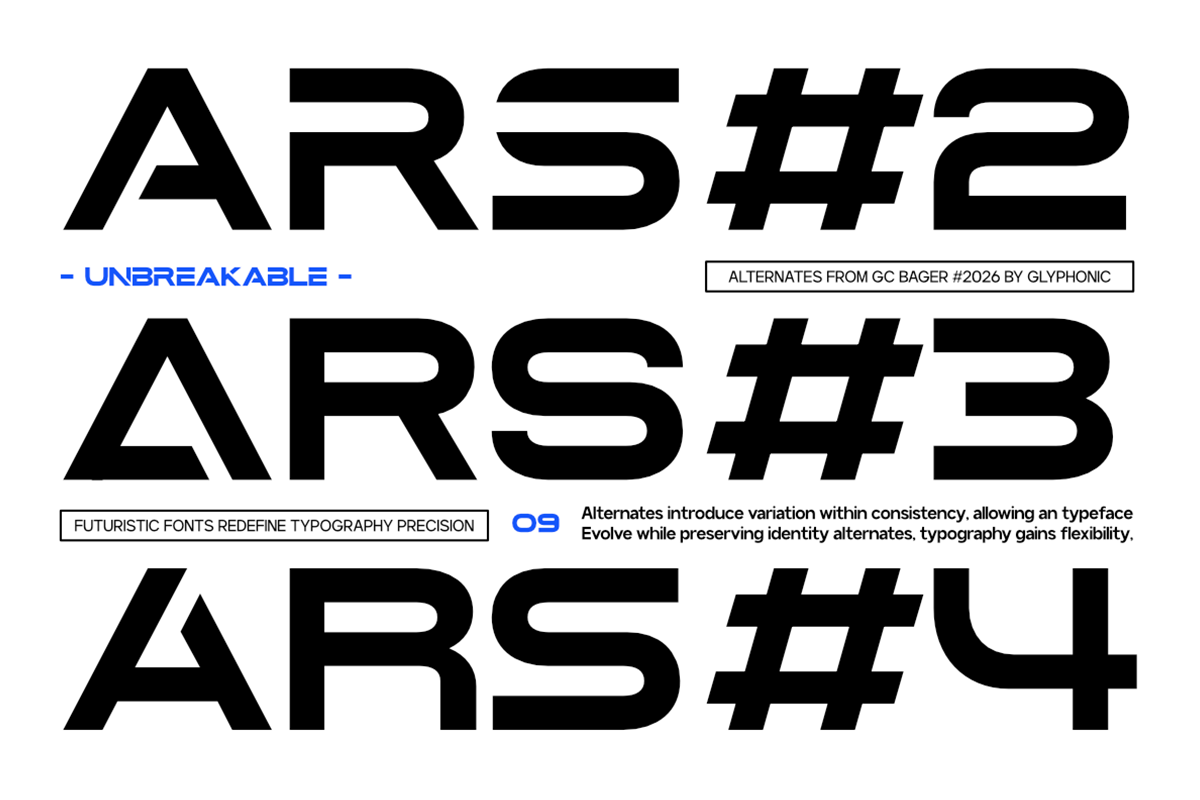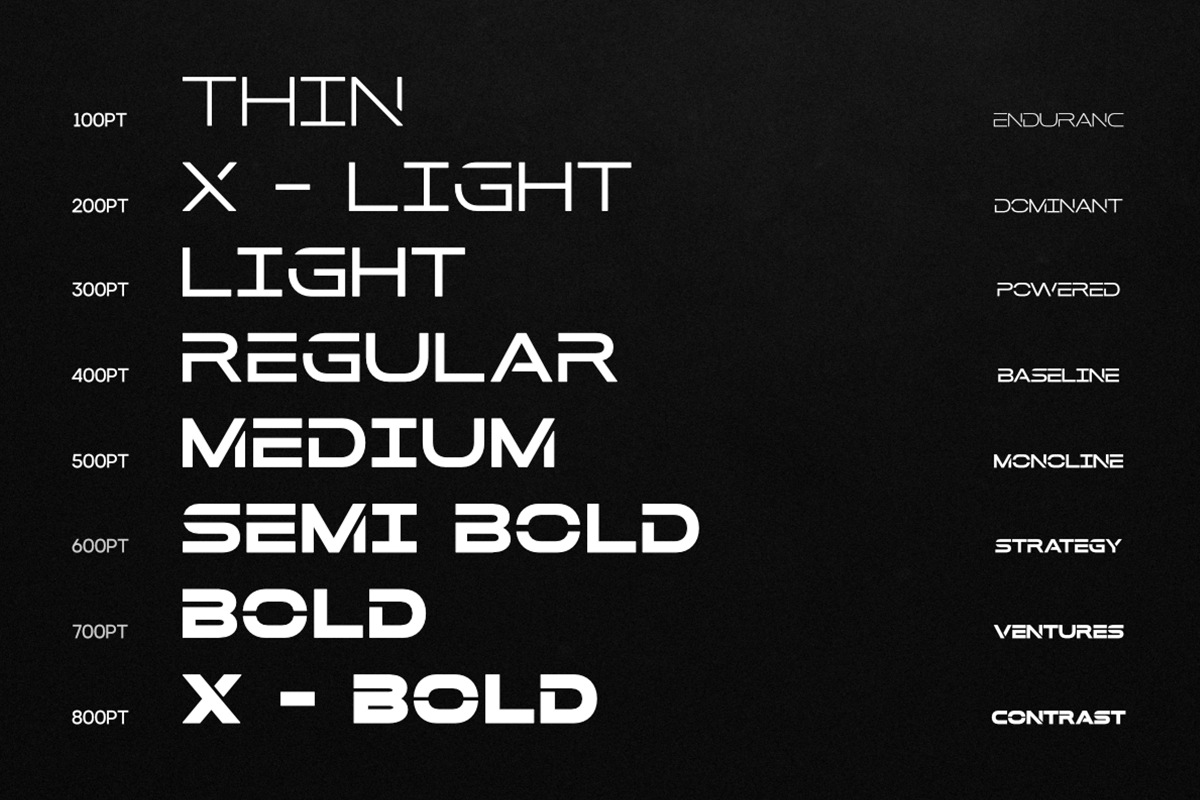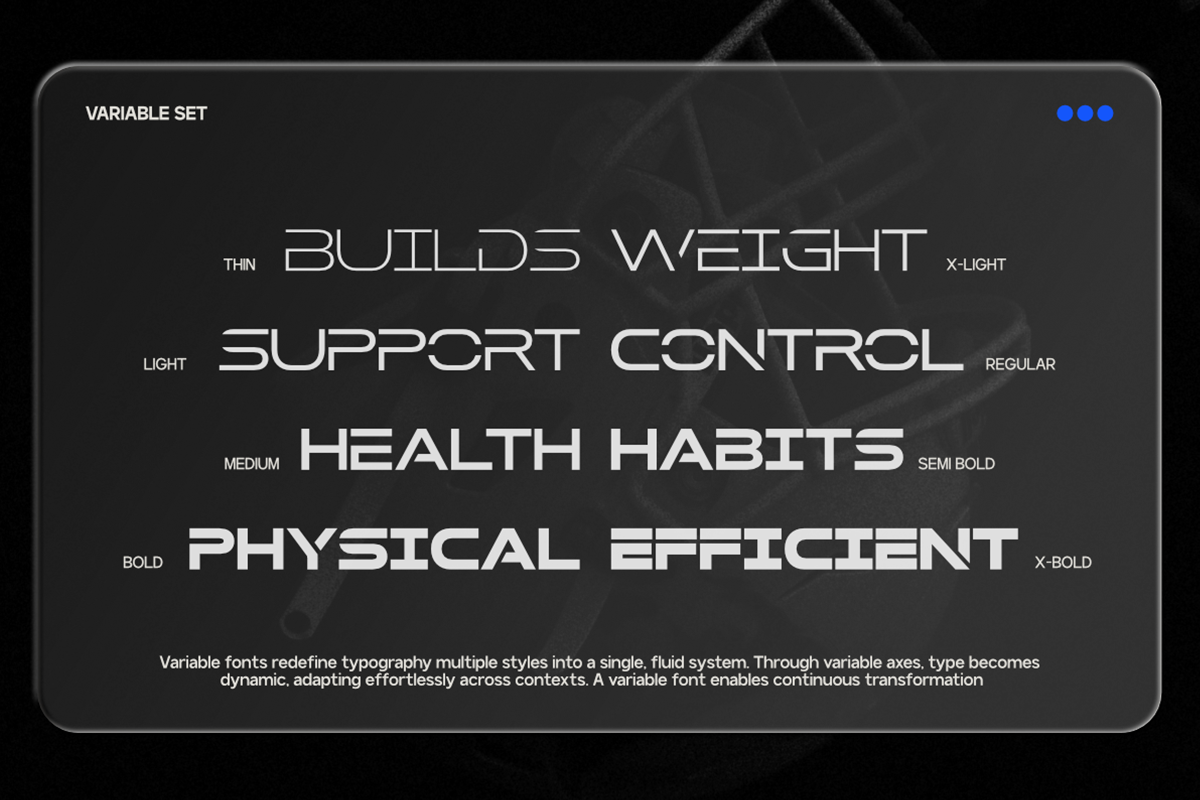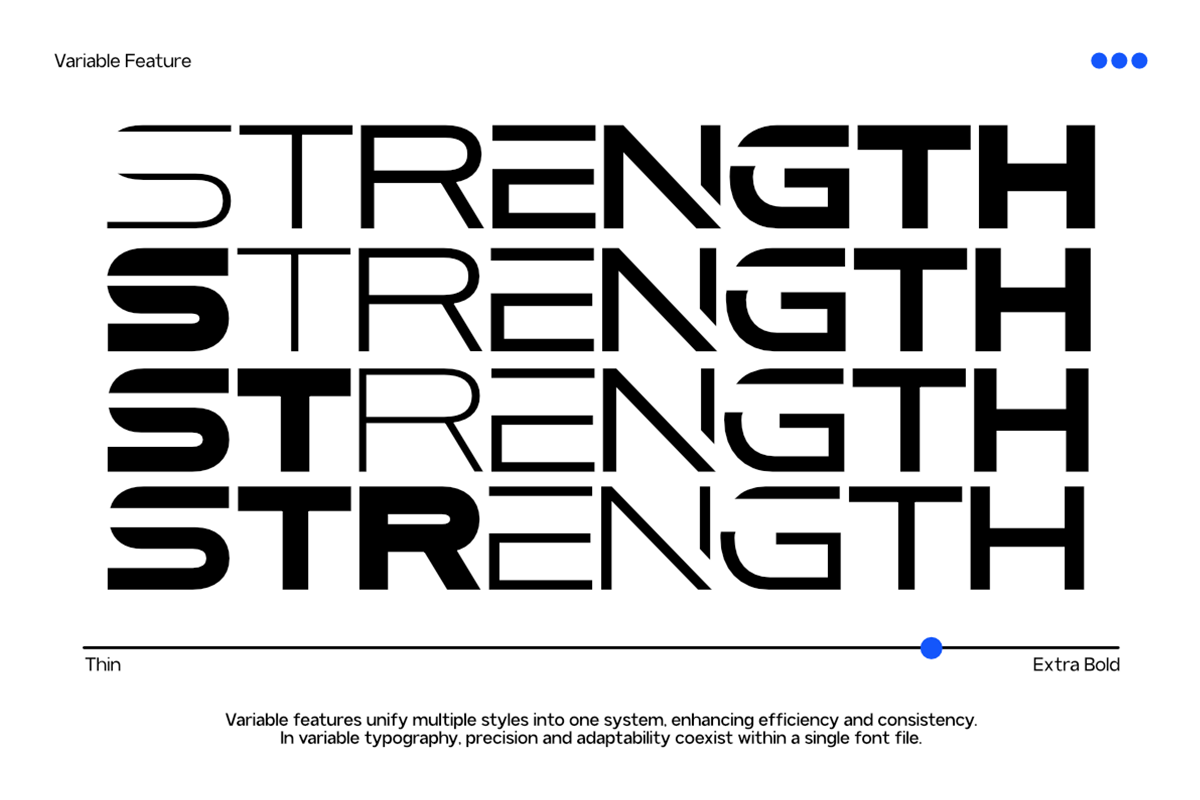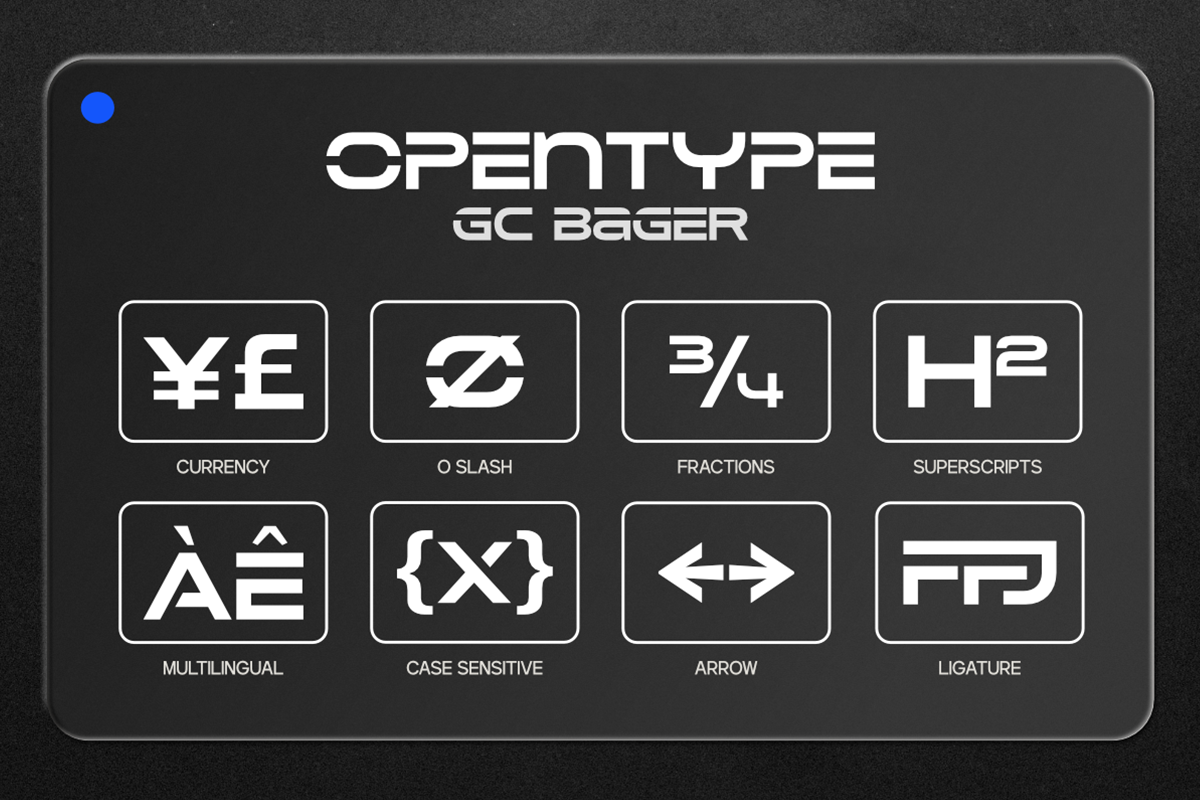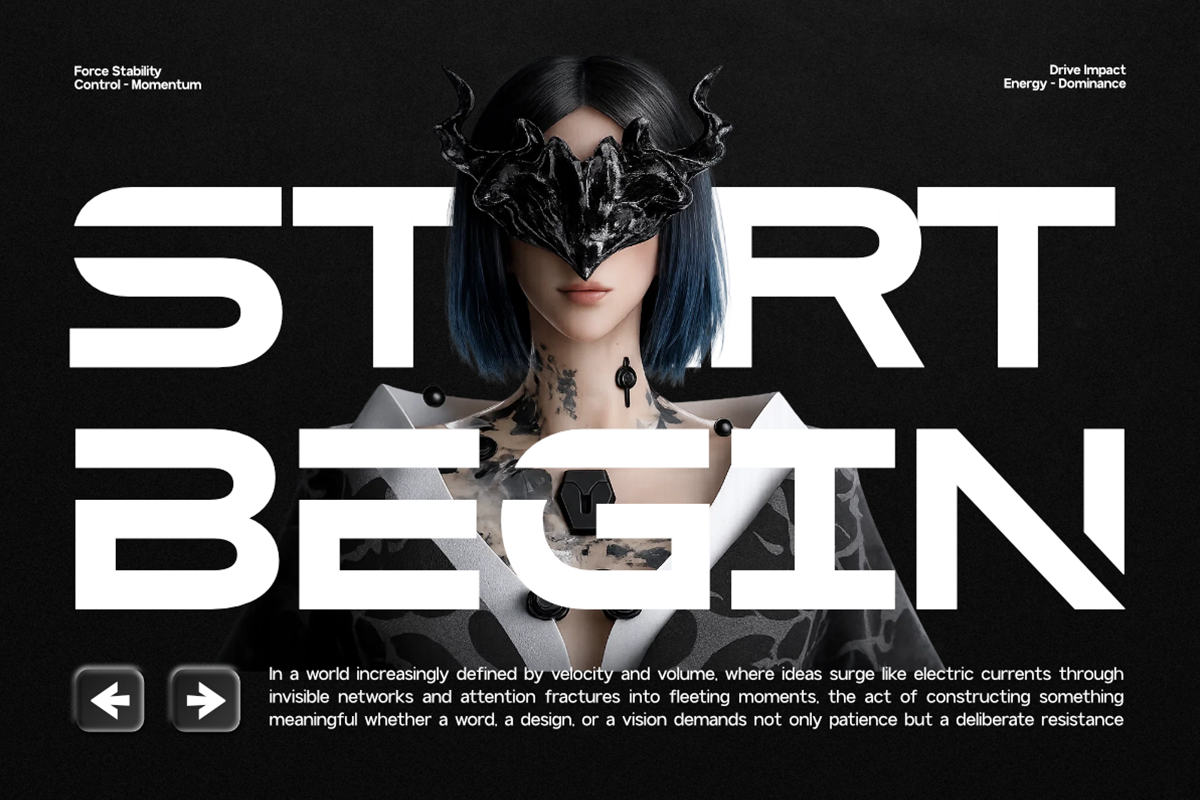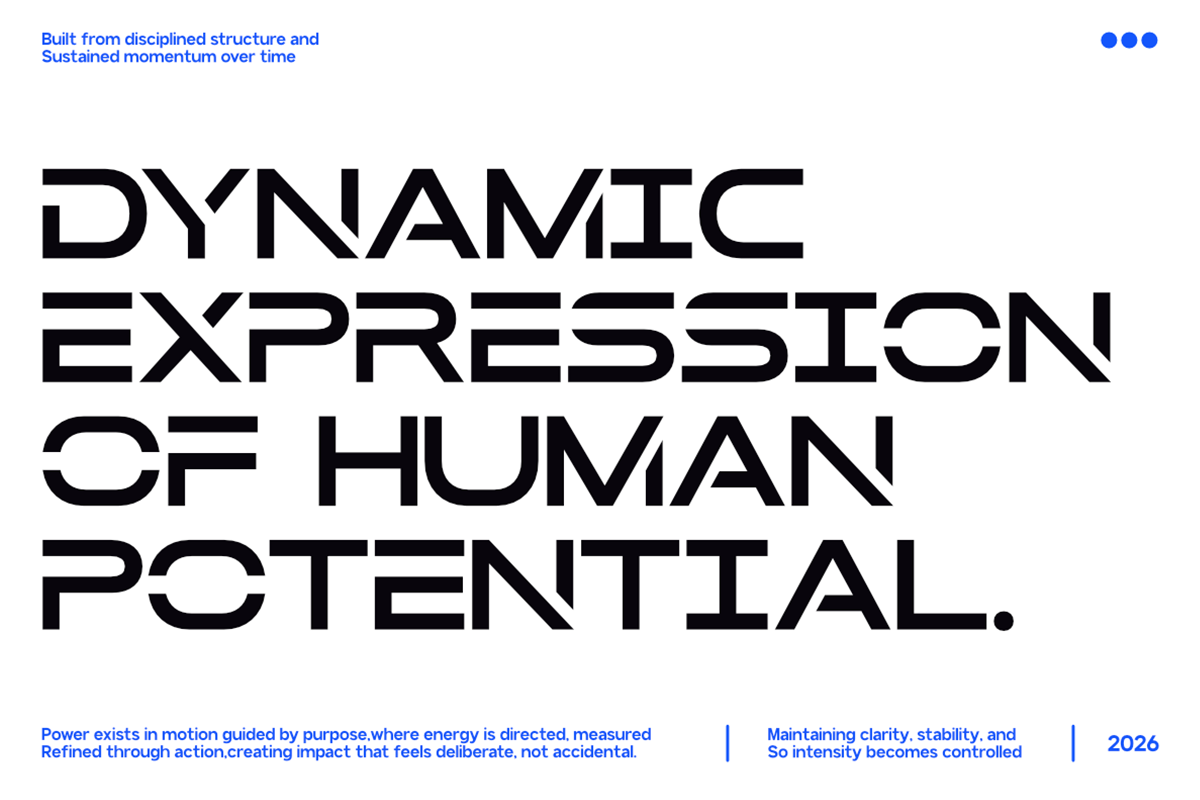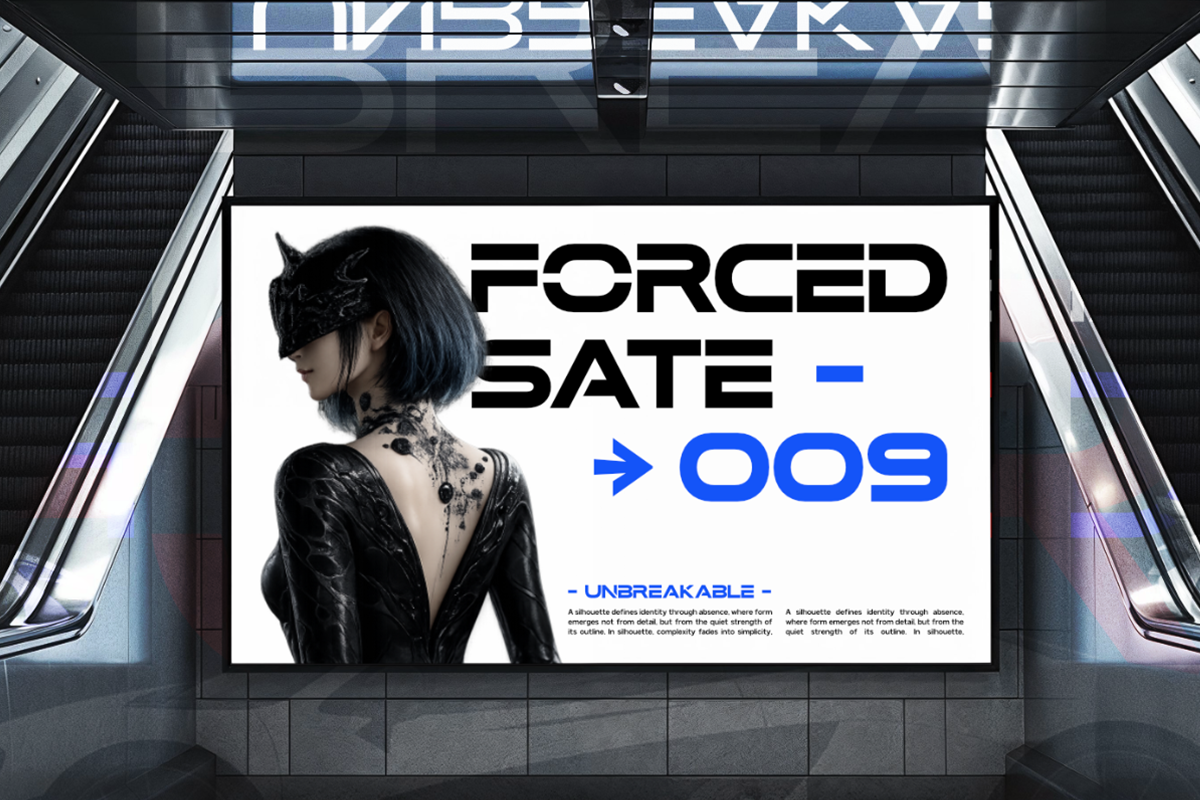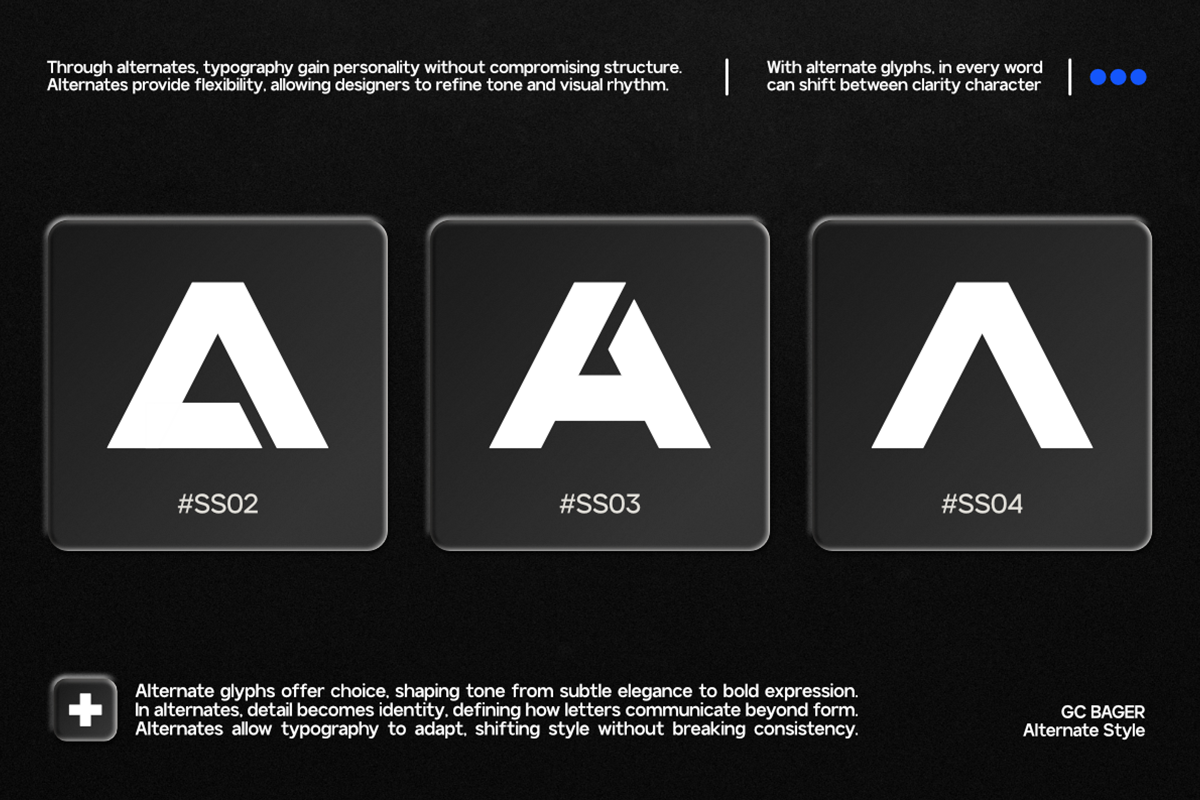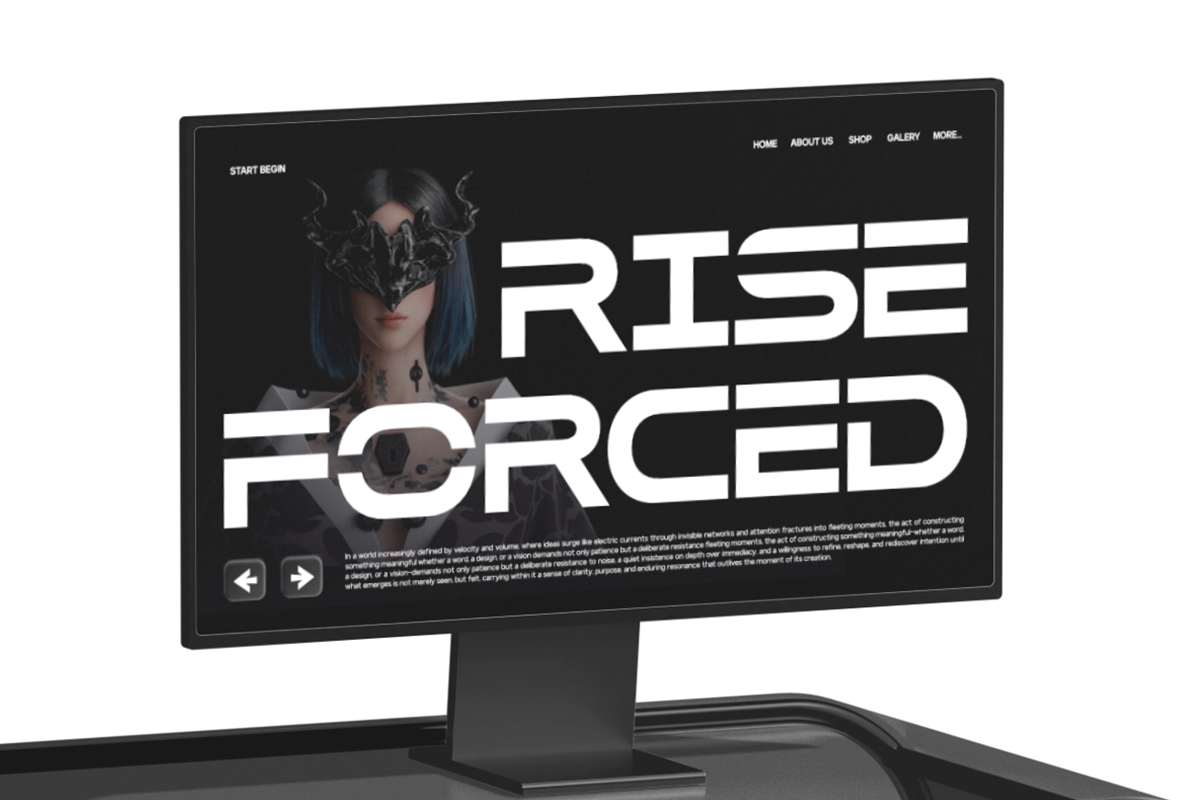
GC Bager - Futuristic Sans
GC Bager – Futuristic Sans is a modern sans serif typeface crafted with sharp geometry and a forward-thinking aesthetic. Designed to embody speed, precision, and technological sophistication, Bager delivers a bold and futuristic typographic voice that stands out in high-impact visual environments.
Built with extended proportions, clean cuts, and dynamic horizontal forms—as seen in its distinctive letter structure—GC Bager creates a strong sense of motion and direction. The geometric construction is enhanced with sleek detailing, making it ideal for designs that demand a cutting-edge and modern appearance.
As a variable typeface with multiple weight options, GC Bager allows designers to explore a wide range of typographic expressions—from ultra-light futuristic compositions to bold, commanding headlines. Despite its stylized form, the font maintains excellent readability and visual balance.
Whether used for dynamic interfaces, experimental layouts, or bold branding systems, GC Bager brings speed, structure, and futuristic clarity to your typography.
- Variable Font (8 Weight Options: Thin to Extra Bold)
- Futuristic Geometric Sans Construction
- Extended & Dynamic Letterforms
- Multilingual Support (170+ Languages)
Bring futuristic energy, precision, and bold innovation to your design with GC Bager.